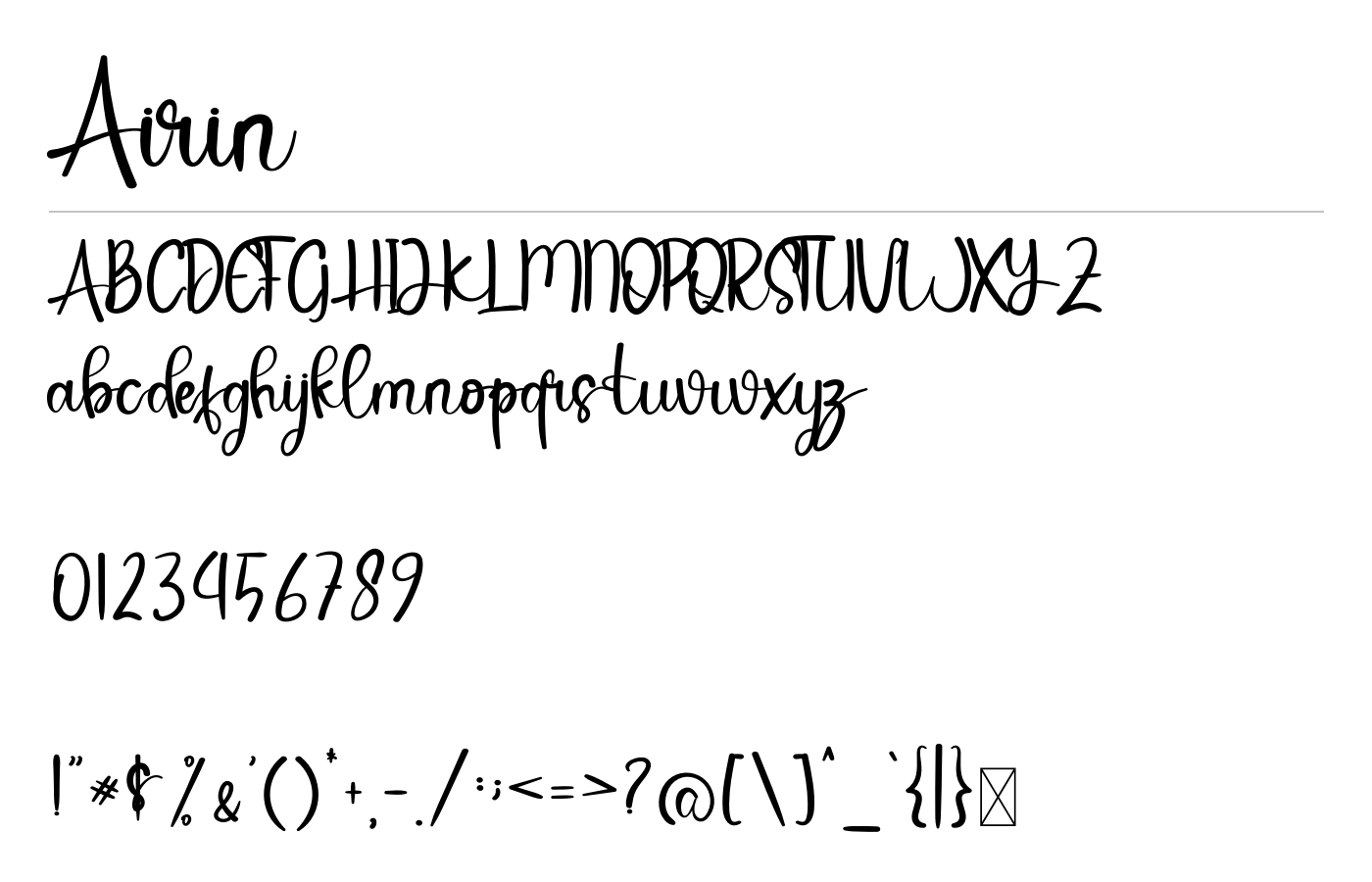
Airin is a charming handwritten script font with a playful and casual feel, featuring tall, slender letterforms with smooth, flowing strokes. Its lively style is perfect for adding a personal touch to invitations, branding, and social media designs, where a friendly and approachable vibe is desired. This font works well in creative and informal contexts, bringing warmth and personality to headlines, logos, and packaging.
Airin Font
About Airin Font